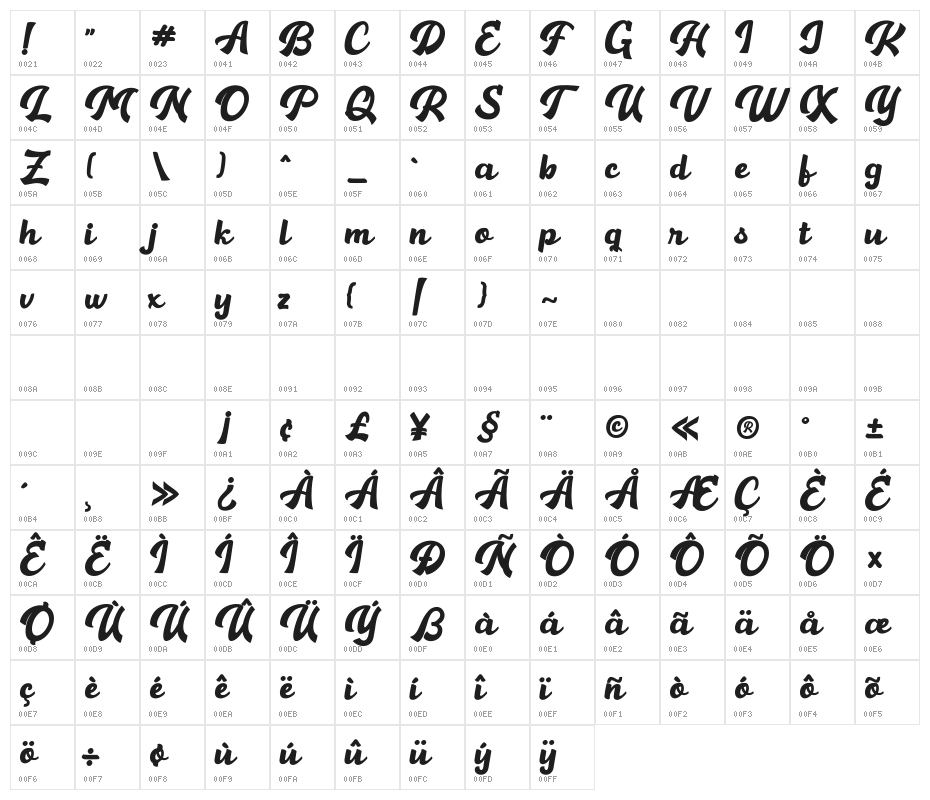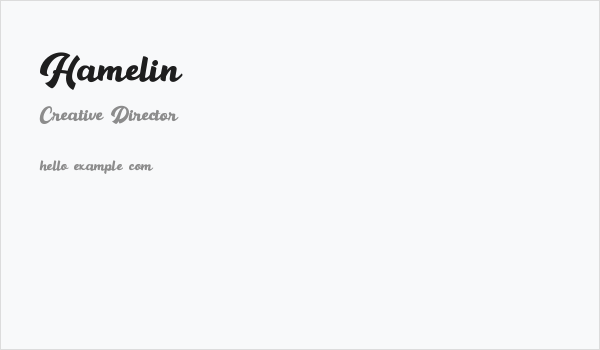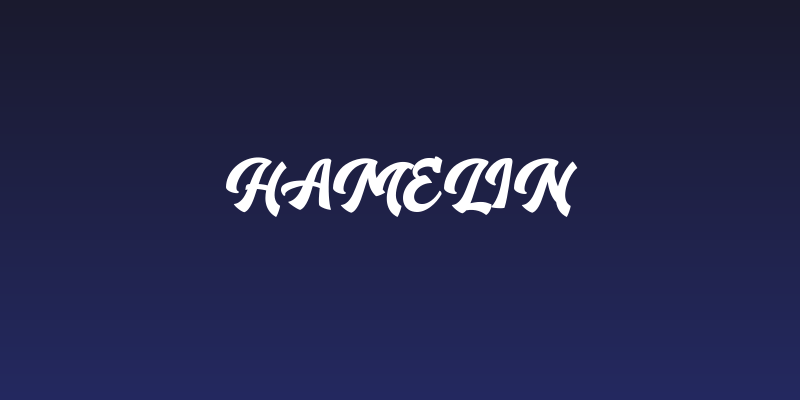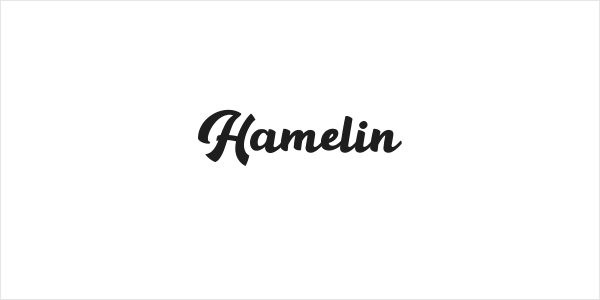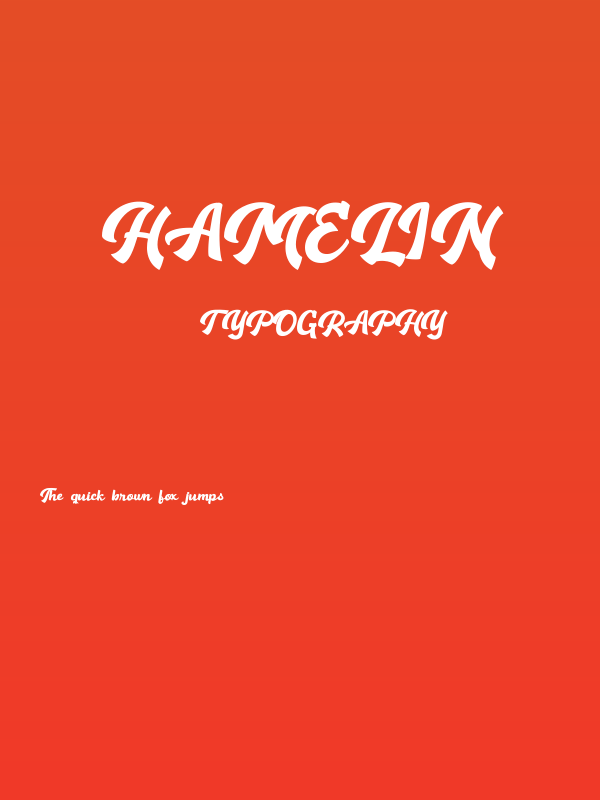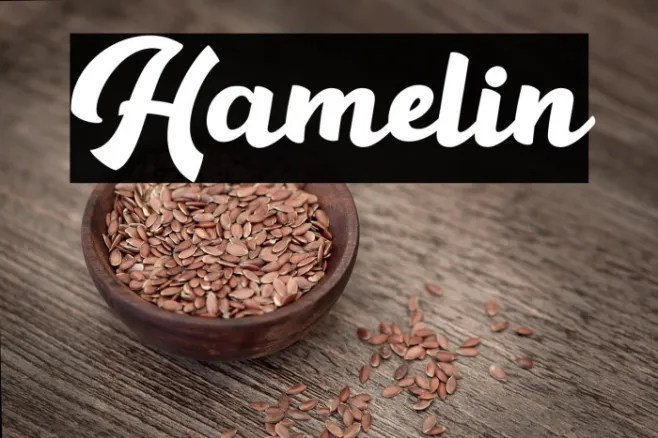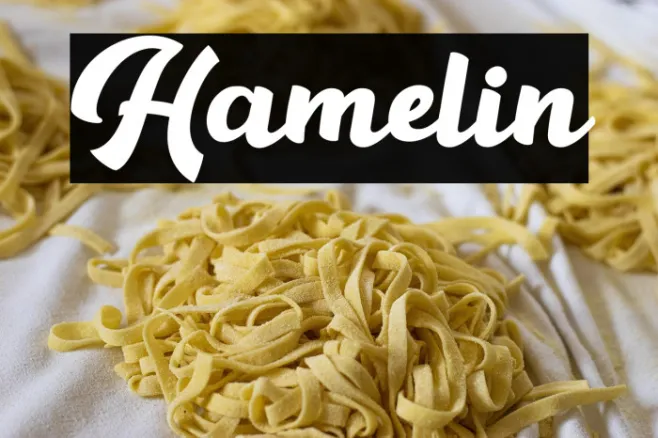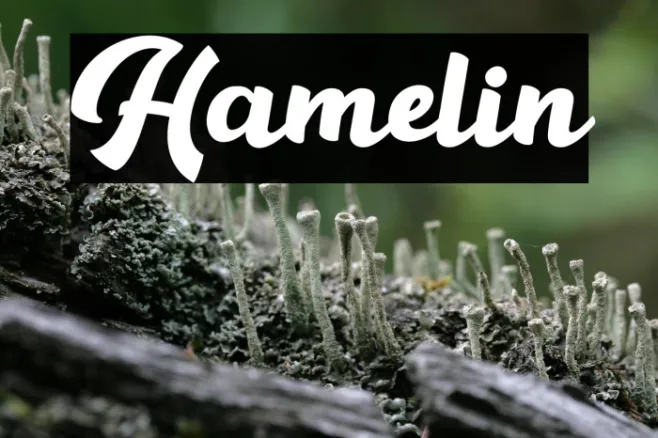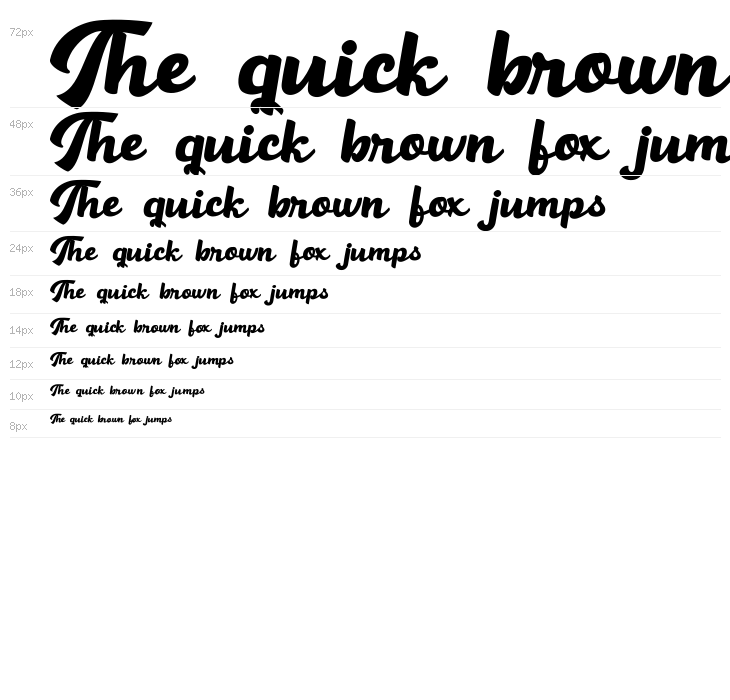
Hamelin Font
Hamelin Description
This font features a bold and expressive script style with a flowing, cursive design. The characters are interconnected, creating a sense of movement and elegance. The uppercase letters are particularly ornate, with sweeping curves and flourishes that add a decorative touch. The lowercase letters maintain a consistent style, with rounded forms and smooth transitions. The font is well-suited for projects that require a personal or artistic flair, such as invitations, greeting cards, or branding materials. Its bold weight and high contrast make it stand out, while the tight character spacing ensures readability.
| Proposed Projects | Ideal for invitations, greeting cards, branding, and artistic projects. |